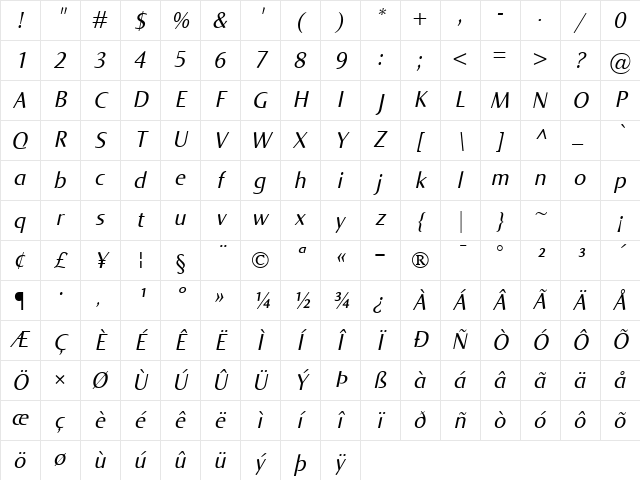
Norma is a composed and adaptable typeface that performs quietly and consistently across a wide range of design contexts. The slanted form adds forward momentum and visual energy.
Pro Tip: Use Norma for emphasis, pull quotes, and subheadings where its slanted energy can add rhythm to the layout.